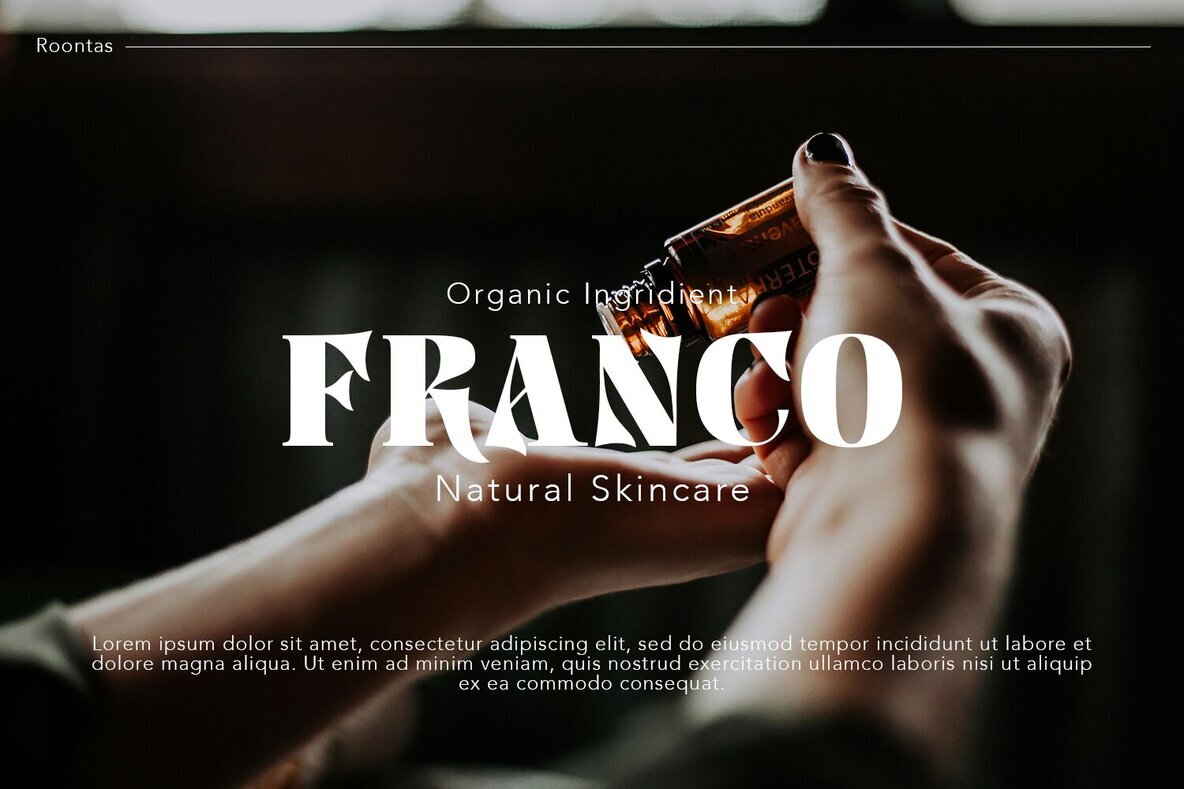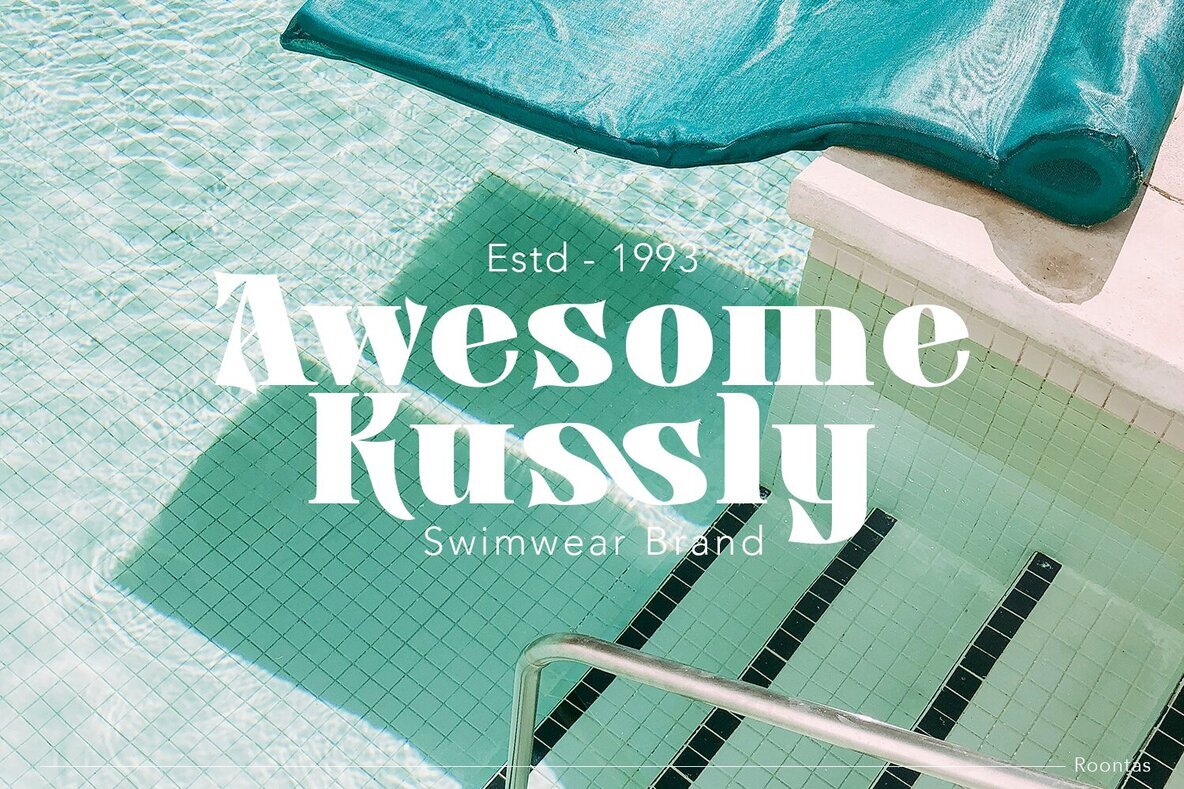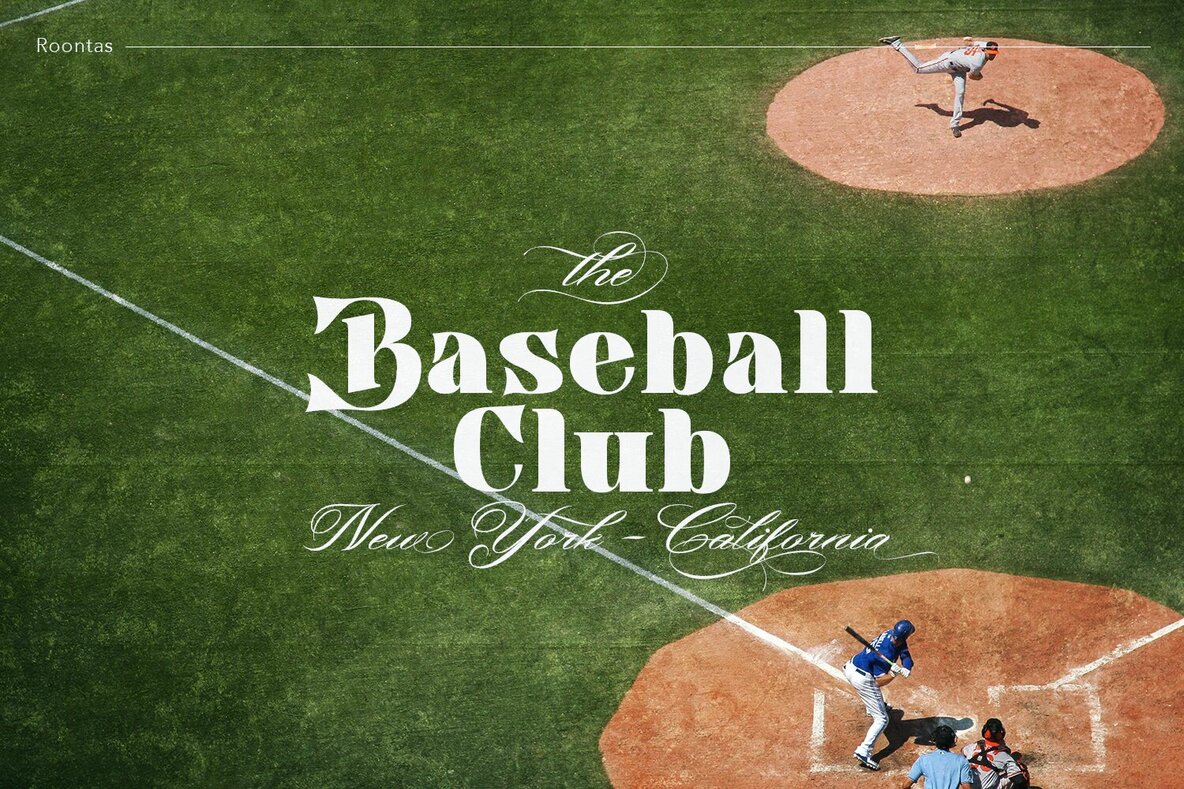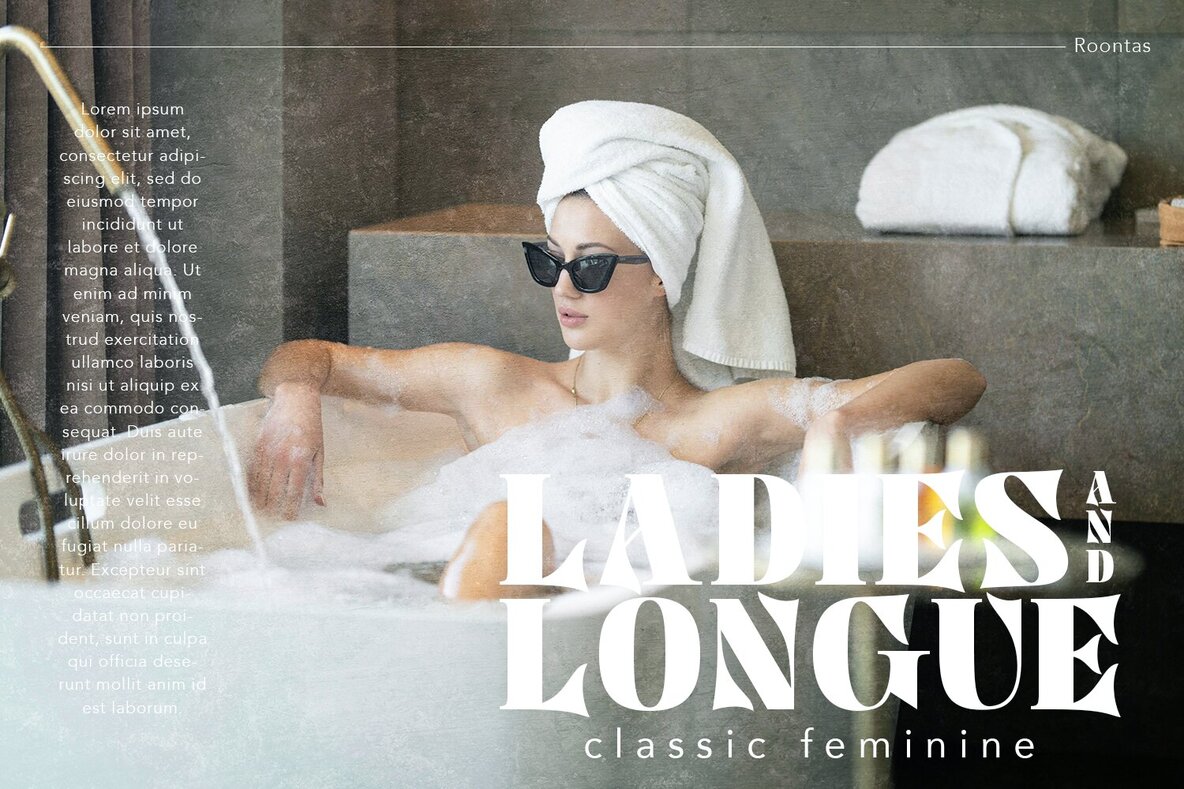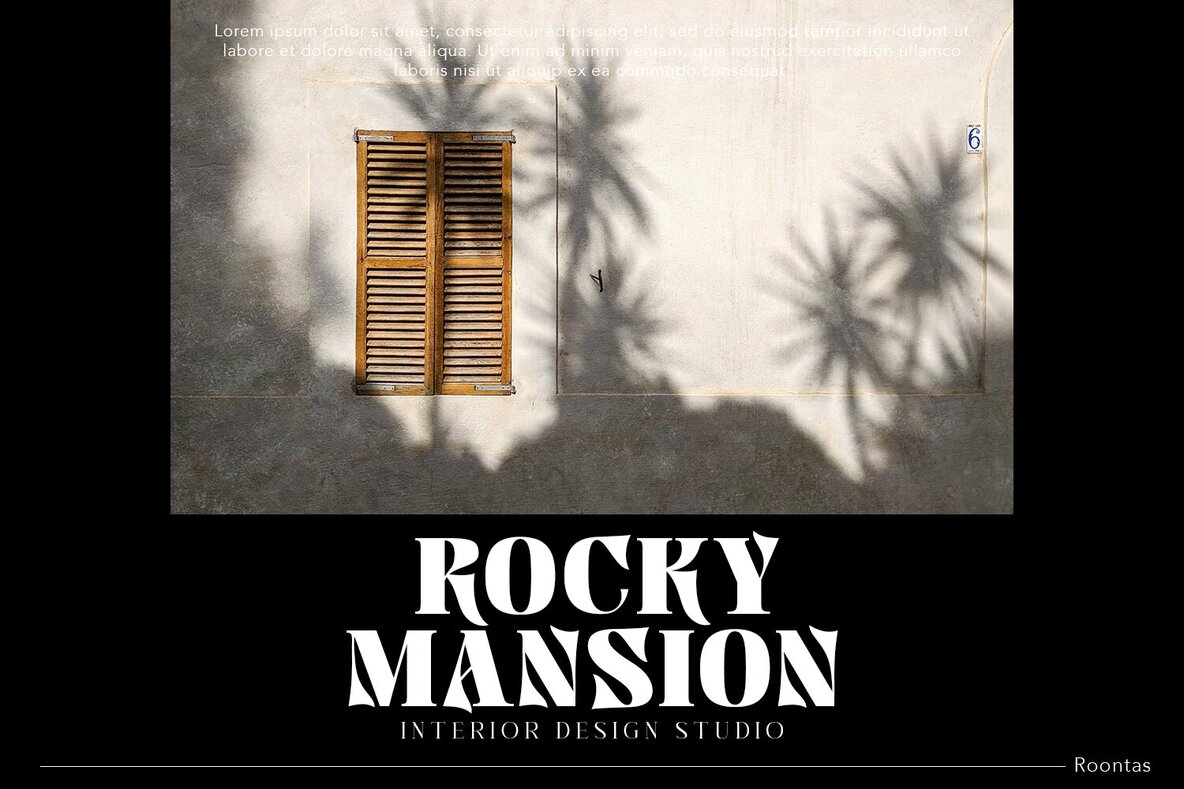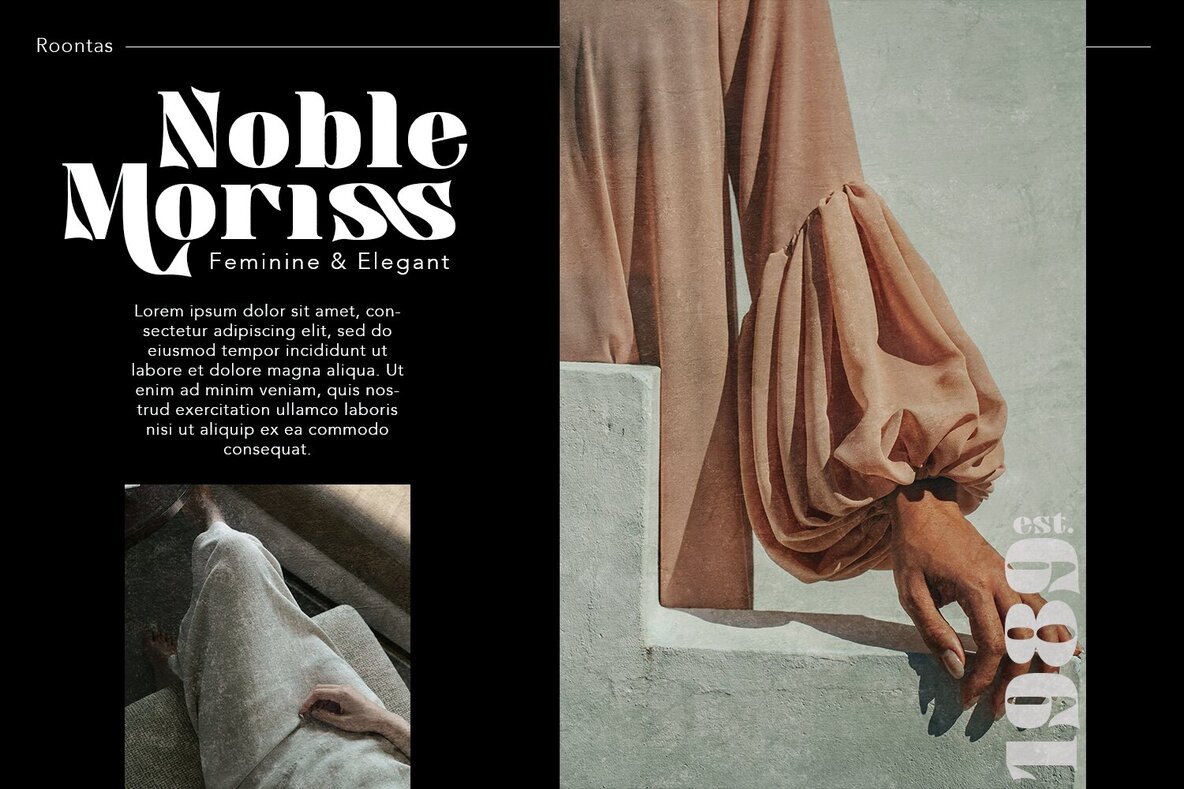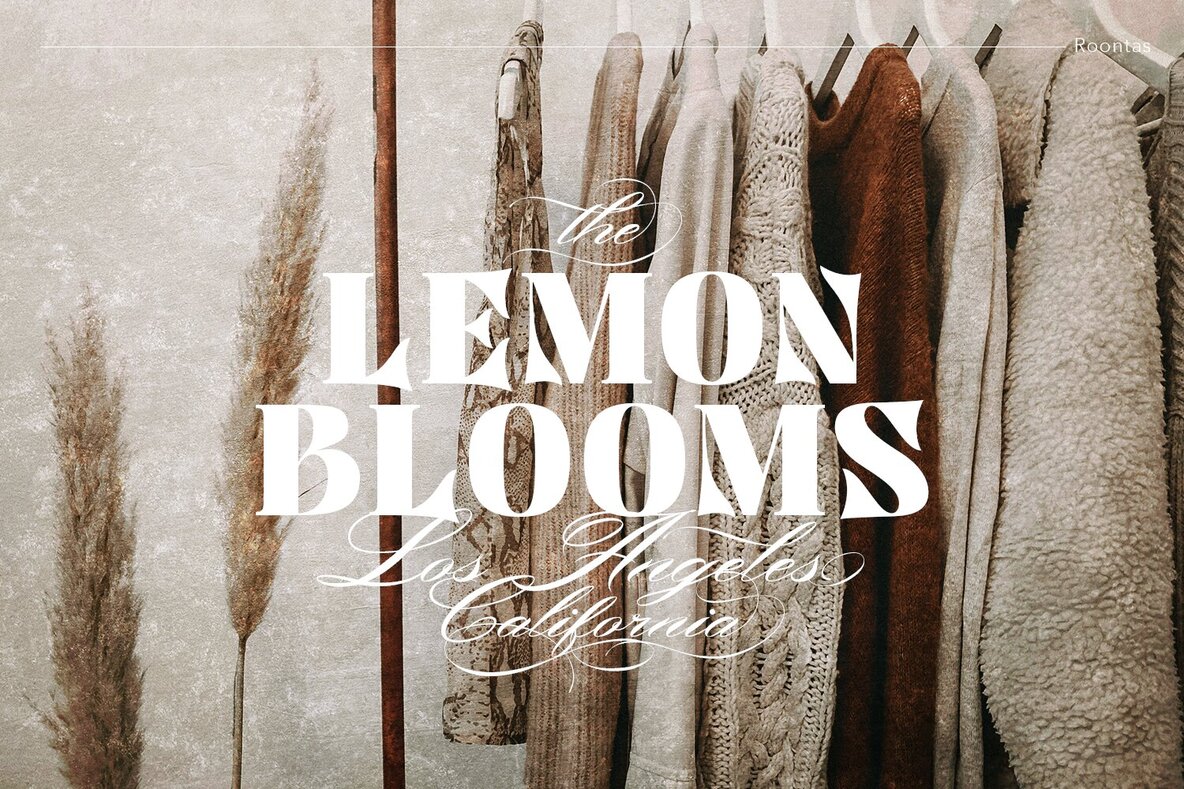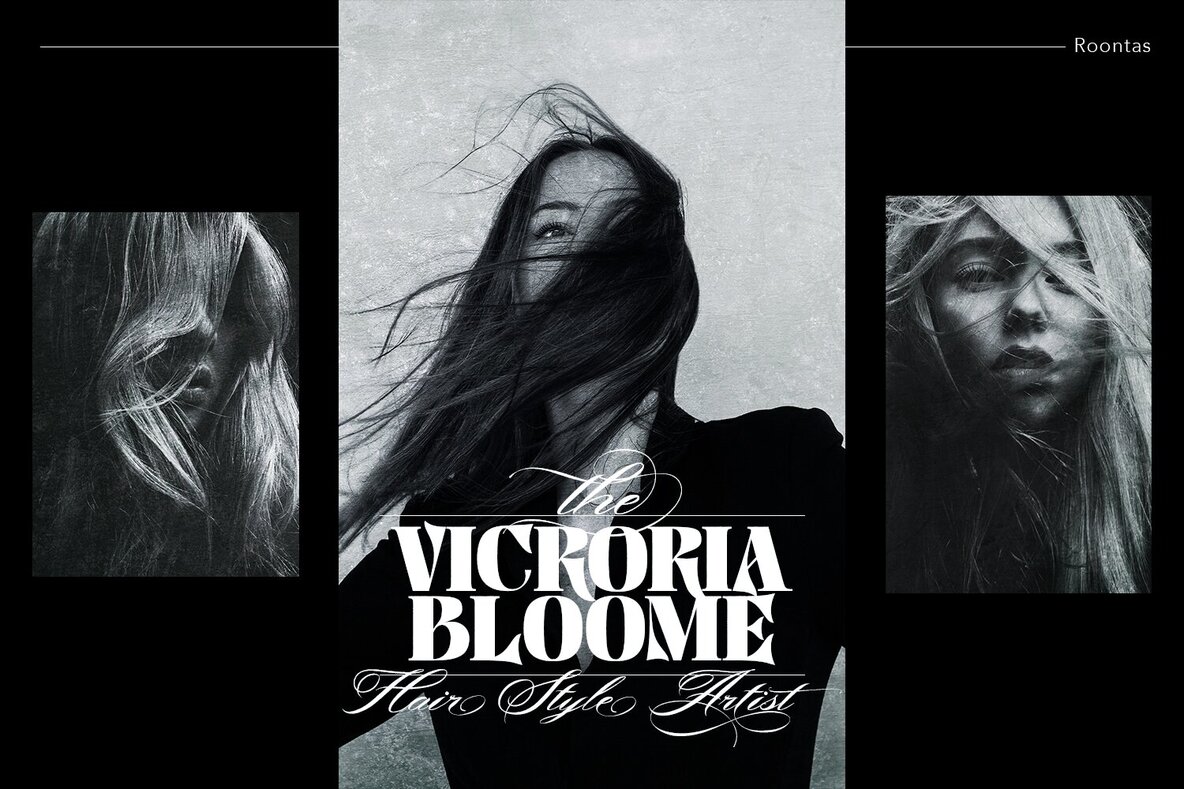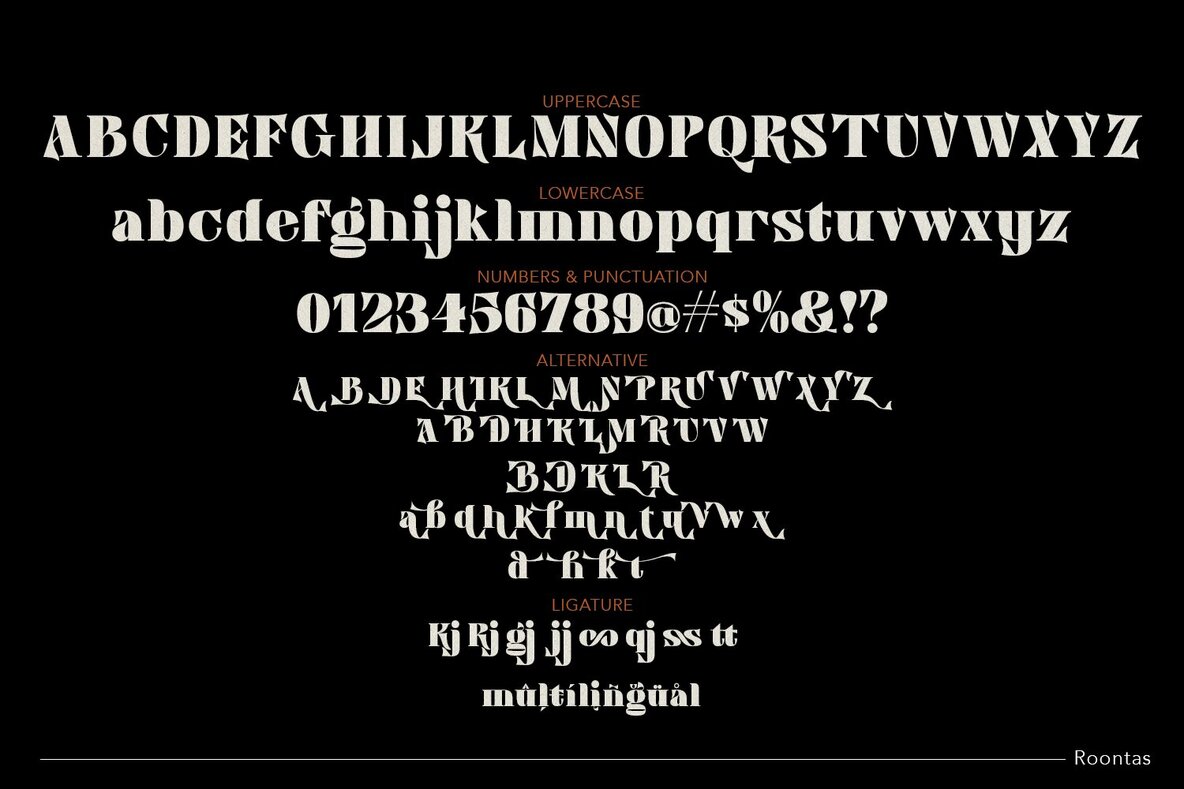
Roontas Font
Roontas Regular
Roontas is a retro nostalgic font, come with single weight, legible and expressive shapes. This font is very perfect for many display purposes a lot of stylish alternates characters and ligature will makes this font suitable for your any project design.